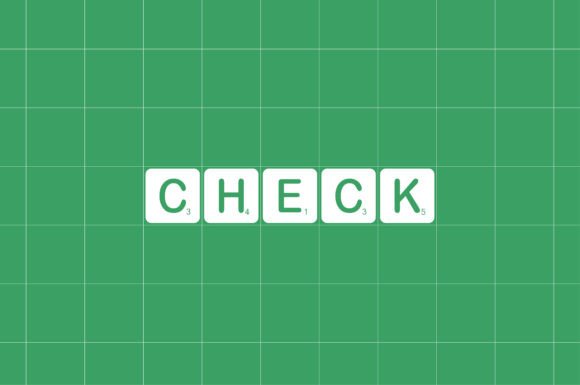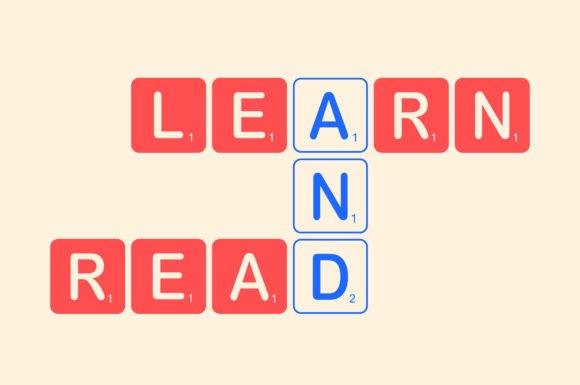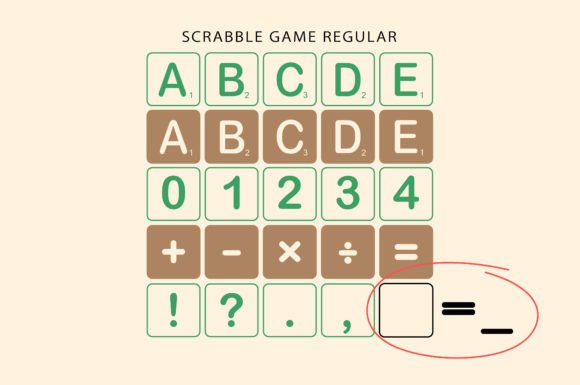
Introduction to Scrabble Game Font
Scrabble Game is learning and play font based on a popular word board game.
Easy to use with outline in lowercase, silhoutte in uppercase comes with number and symbol Friendly and playful with your school project, scrapbook, worksheet, poster, etc.